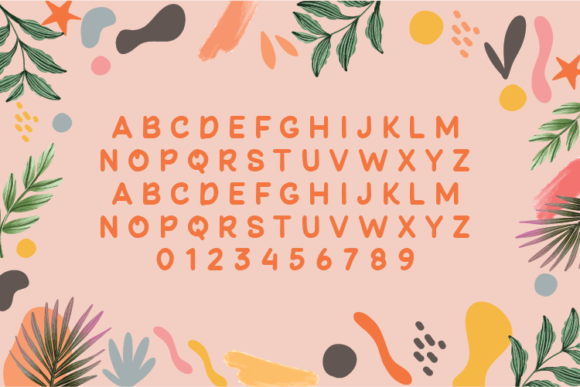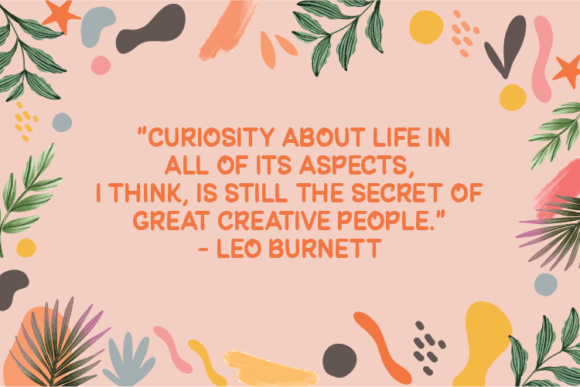
Simple Planner Font
db-ku.com - Script & Handwritten -- Simple Planner is a natural handwritten font without changing a single node in each character’s indentation, this makes this font very interesting and unique. Perfect for quotes, notes, tees, and any product design.